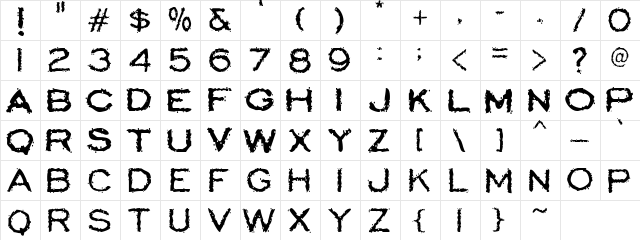
Scatterbrained Restrained Regular
Design Context for Scatterbrained Restrained Typeface
Scatterbrained Restrained takes a measured approach to typography — its balanced proportions and neutral character make it a reliable workhorse for both digital and print work.